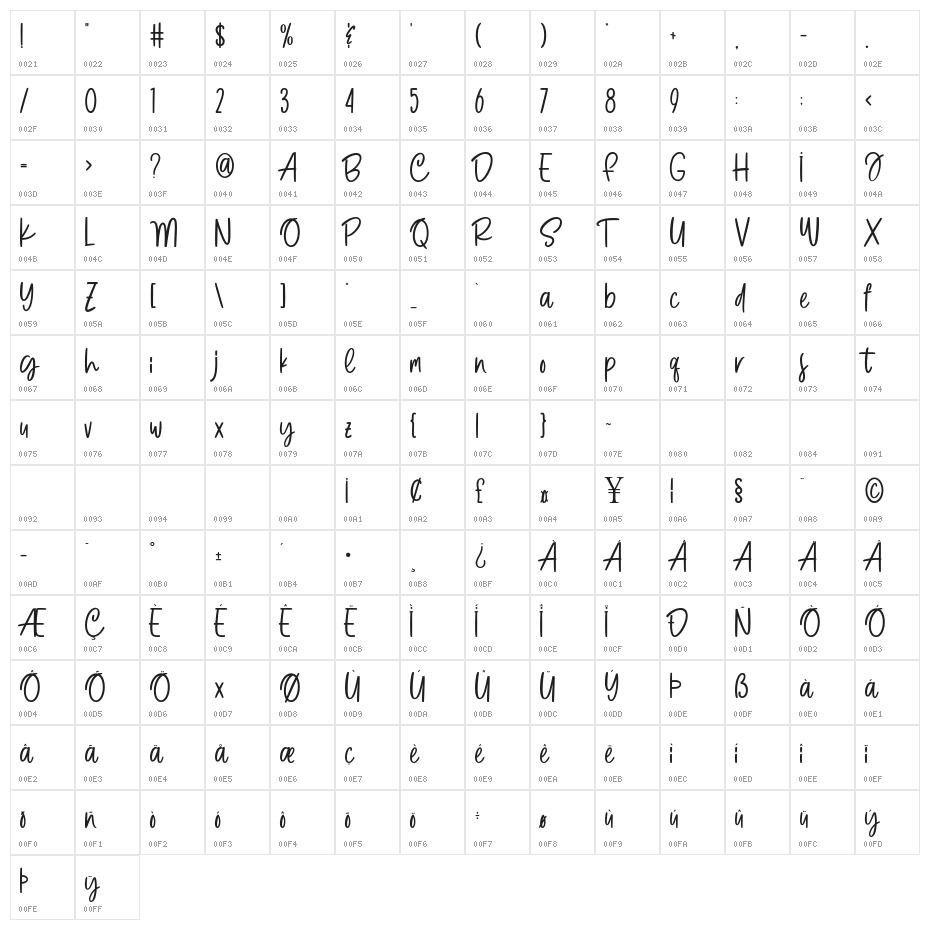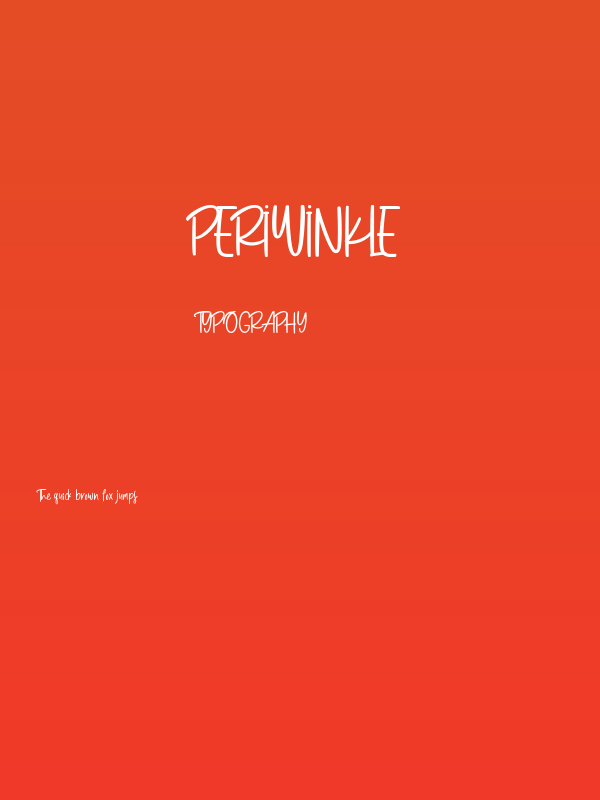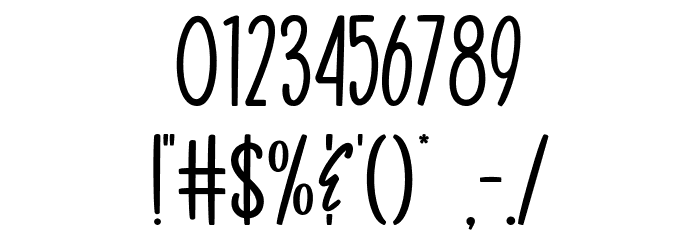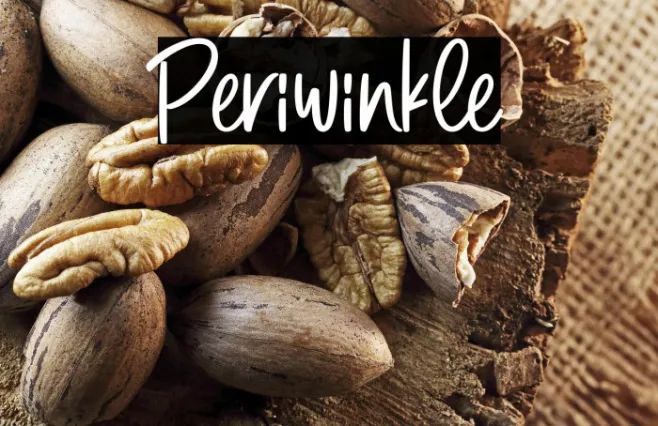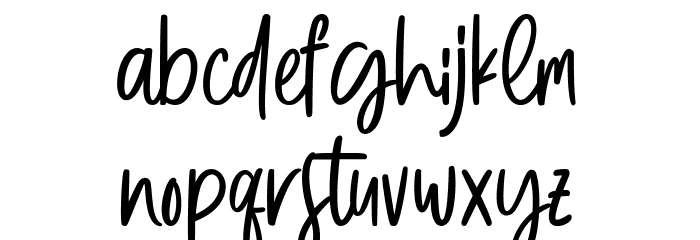
Periwinkle Font
Periwinkle Description
This font features a playful and casual handwritten style, characterized by its smooth, flowing lines and slightly irregular shapes. The letters are tall and narrow, giving them an elongated appearance that adds a touch of elegance. The strokes are consistent in width, providing a uniform look across all characters. The font includes both uppercase and lowercase letters, as well as numbers and a variety of special characters. Its informal yet stylish design makes it suitable for projects that require a personal and approachable feel.
| Proposed Projects | Ideal for greeting cards, invitations, personal branding, and social media graphics. |